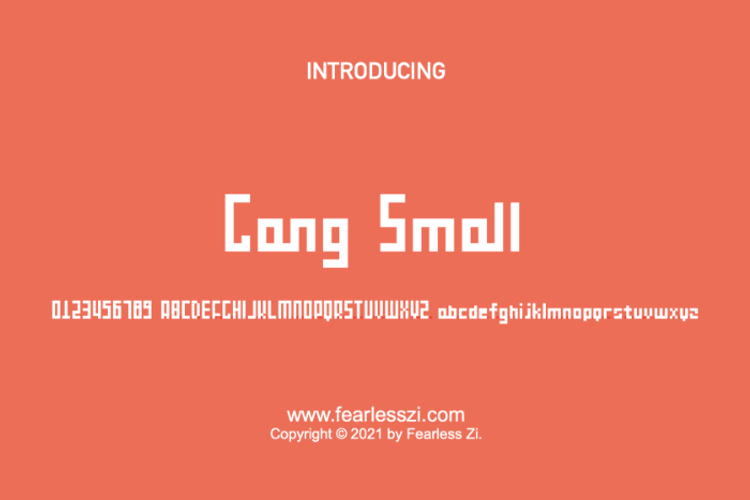
Gang small Font
Gang small Font is a Pixel font and was created on . Since then, it has been downloaded 1,393 times and added to 33 collections. 15 people have liked Gang small Font and given it a thumbs up.
YUXIAN Style
this font is so niubi that a can't describe with any word except 牛逼 in Chinese!
Hope u all can get the beauty from this font!
Perfect watermark
Awesome font
Nice & cool~~~ a little geeky
This font is really great and it helps a lot.